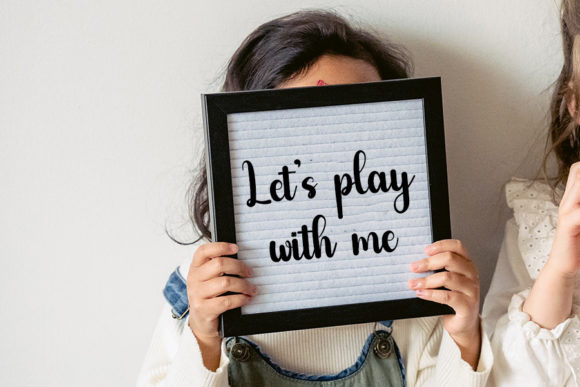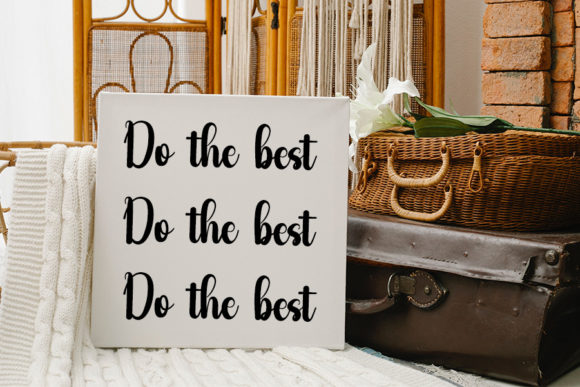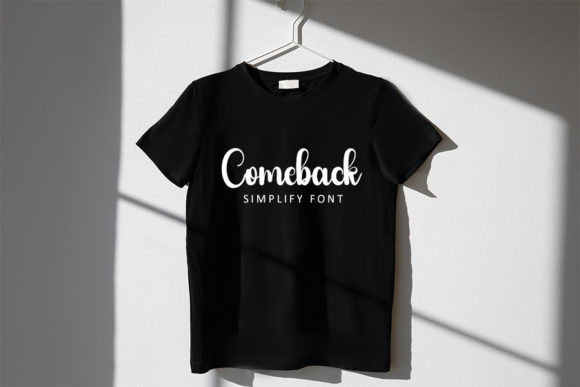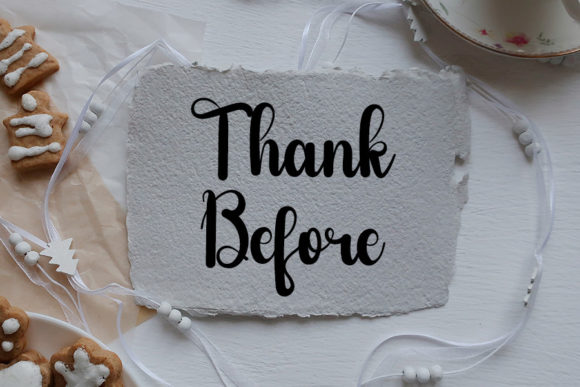
Introduction to Simplify Font
Have you ever stared at a blank design canvas, eager to bring your creative vision to life, only to be overwhelmed by the endless options for fonts? For designers, finding the perfect font can be a daunting task, especially when working on a high-quality project that demands attention to detail. But what if you could simplify your design process with a font that effortlessly adds elegance and sophistication to your work?
Enter the Simplify Font, a beautifully crafted handwritten font that’s perfect for designers seeking a unique and eye-catching design resource. With its curvy lines and delicate strokes, this font is ideal for product packaging, branding projects, magazine covers, social media, weddings, and more.
Key Features of Simplify Font
- High-quality font design: Simplify Font offers a unique and elegant design that is perfect for creative projects, making it a valuable design resource.
- Perfect for digital and print projects: Simplify Font is suitable for both digital and print projects, making it a versatile design resource for designers and artists.
Honest Review: Simplify Font
As a designer, I’m always on the lookout for high-quality design resources to enhance my creative projects. Recently, I came across the Simplify Font, and I’m excited to share my honest review.
- ✨ Elegant and modern design style that’s perfect for minimalist projects
- ✨ High-quality vector files that are scalable without losing resolution
- ✨ Easy to customize with a transparent background, making it versatile for various design applications
- ⚠️ Limited font weights and styles, which may not be ideal for complex design projects
- ⚠️ Some users may find the font too minimalist, lacking in personality
Overall, I’m impressed with the Simplify Font’s clean design and versatility. While it may not be perfect for every project, it’s an excellent resource for designers who want a high-quality, modern font without breaking the bank. I’d definitely recommend it for simple creative projects, but for more complex designs, you may want to consider additional font options.
Use Simplify Font with a transparent background to create a clean and minimalist design. Experiment with different font sizes and styles to add visual interest to your project.
Simplify Font is ideal for a variety of creative projects, including logos, brochures, business cards, and social media graphics. Its high-quality fonts and transparent background make it a versatile design resource for any project.
What is the recommended resolution for using Simplify Font in high-quality designs?
Is Simplify Font suitable for large-scale designs or signage?
Simplify Font is designed to be scalable, making it suitable for large-scale designs or signage. However, it’s recommended to use it at a high resolution (at least 300 DPI) to ensure the font remains crisp and clear. This will also help maintain the font’s high quality and legibility in larger formats.